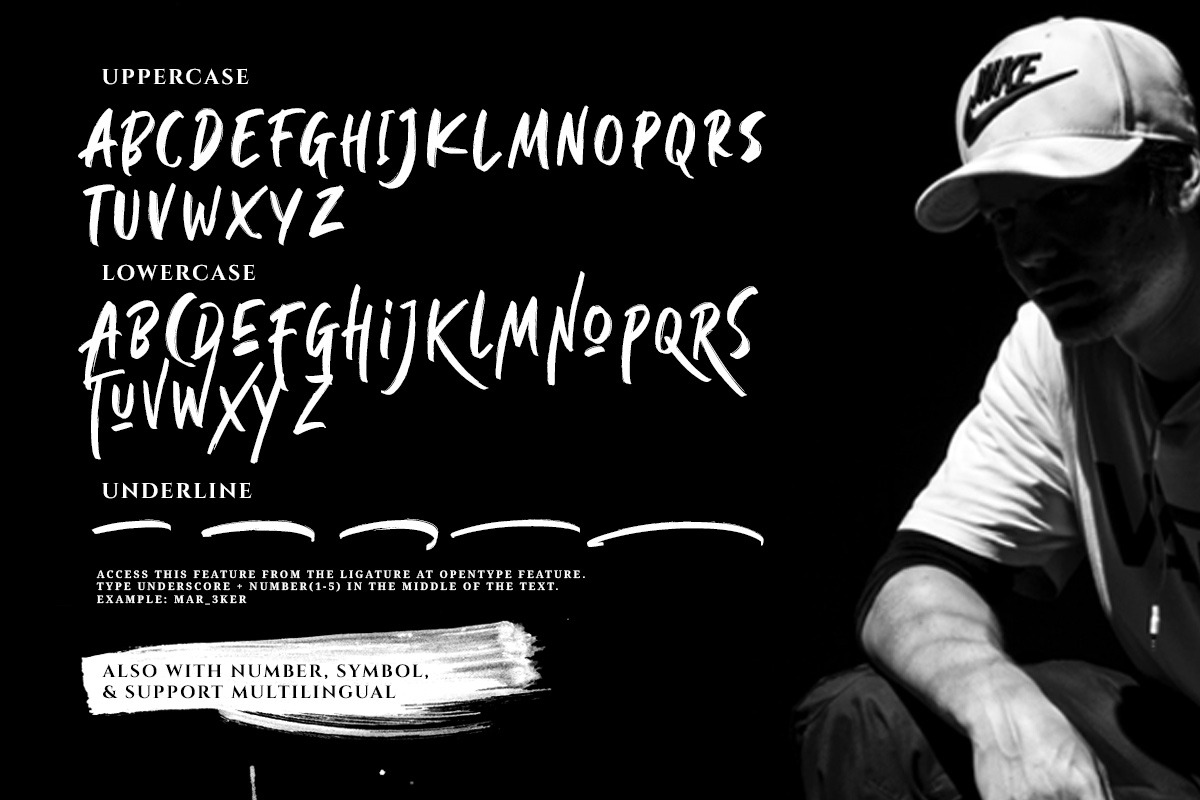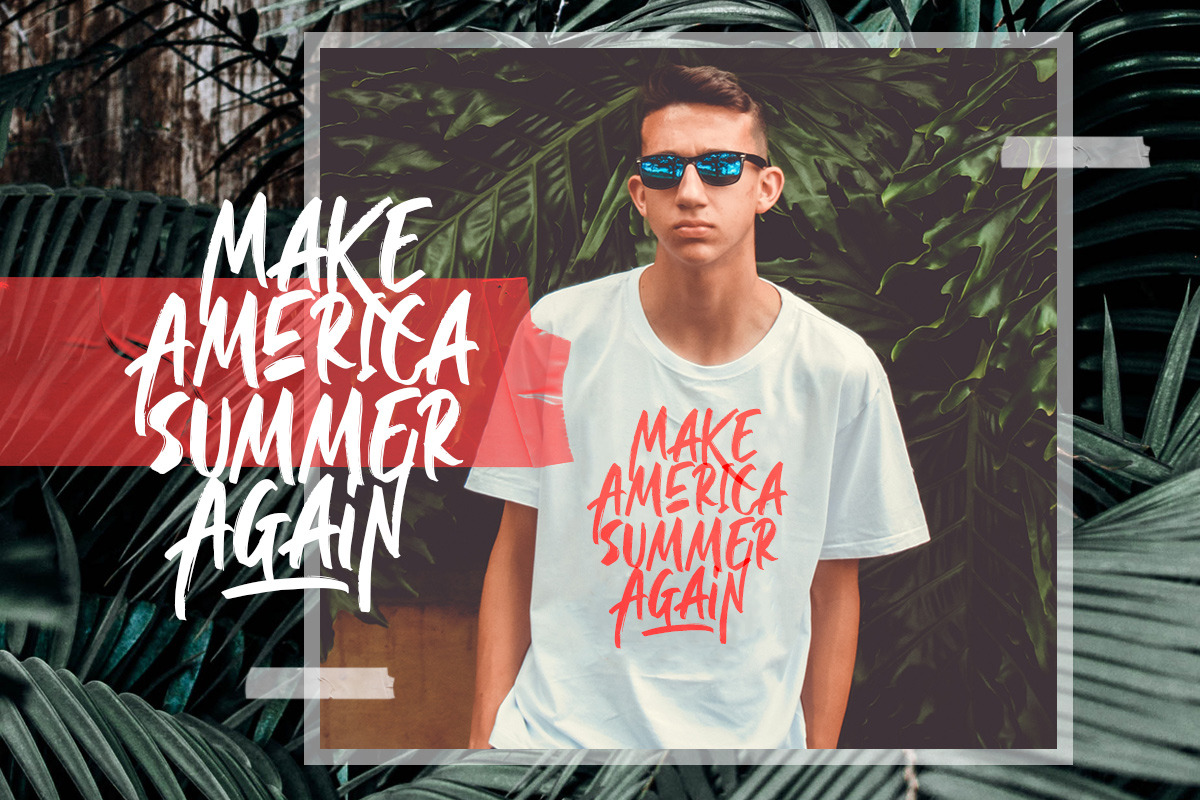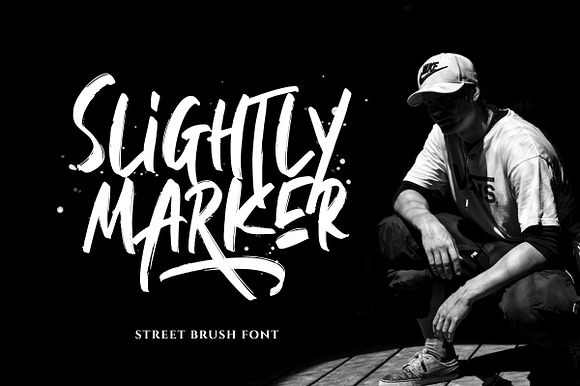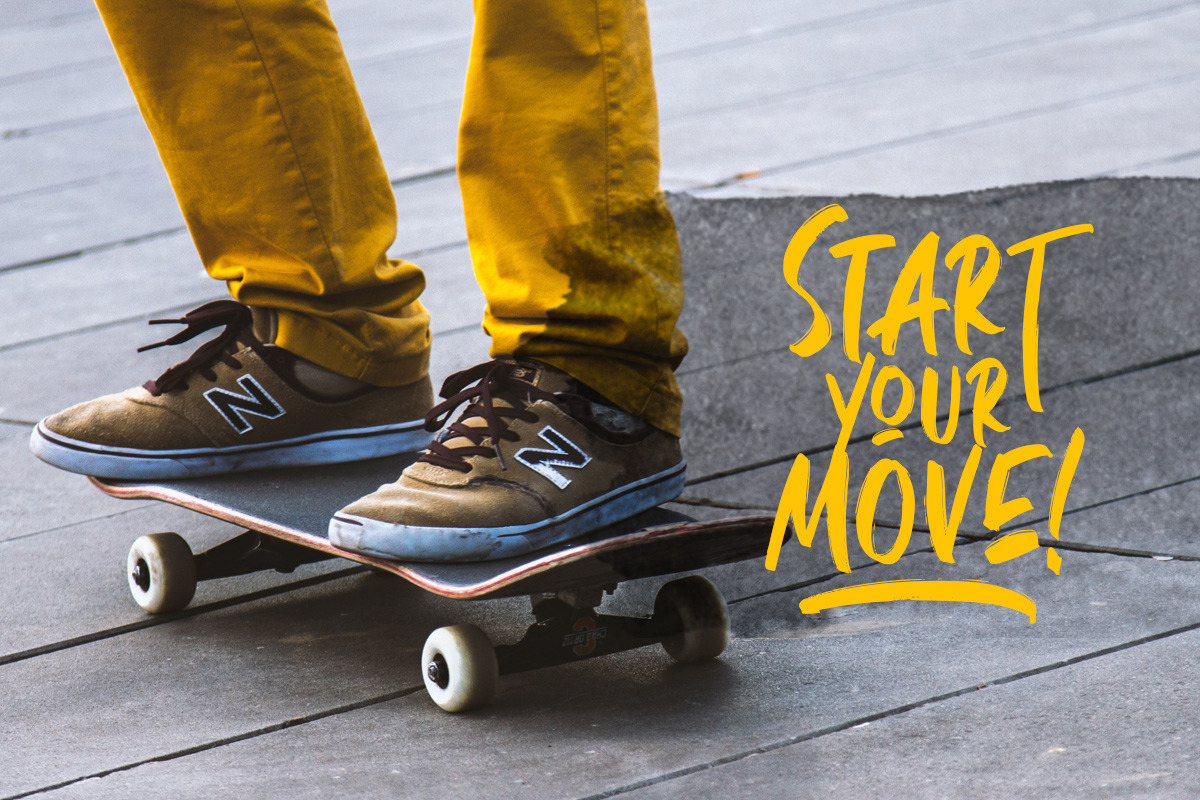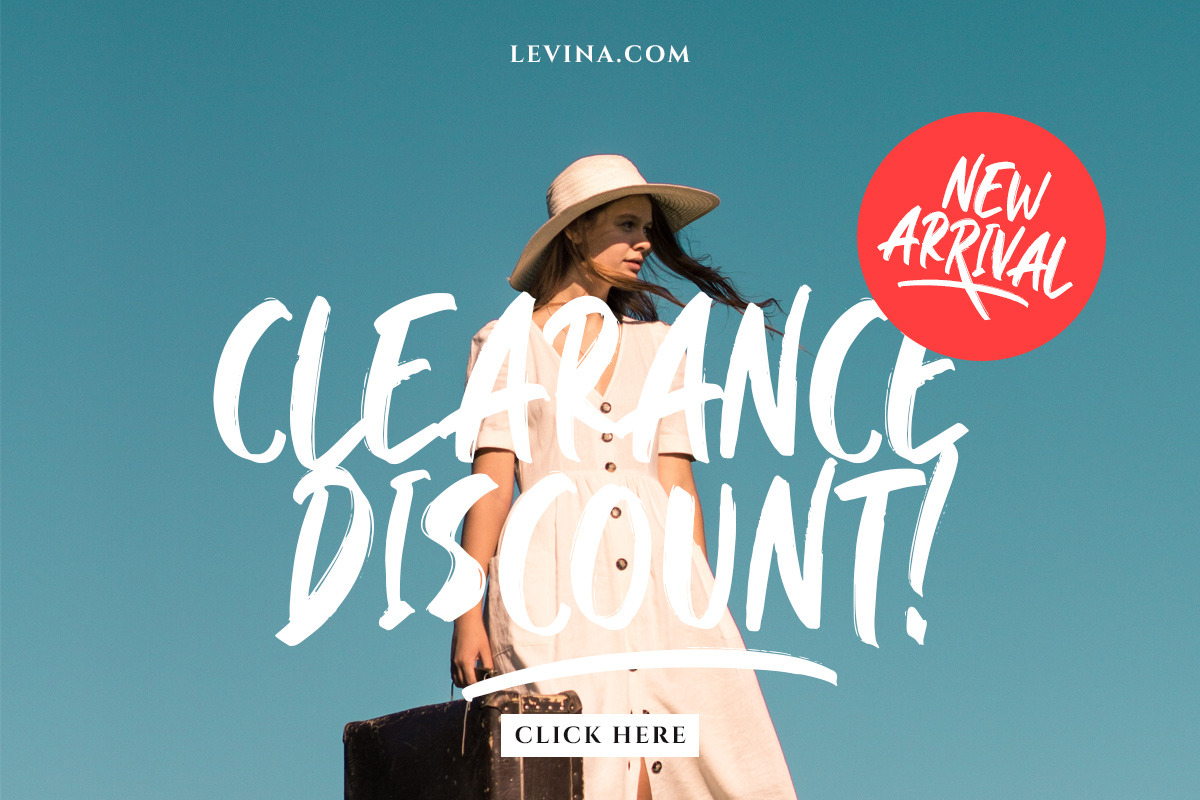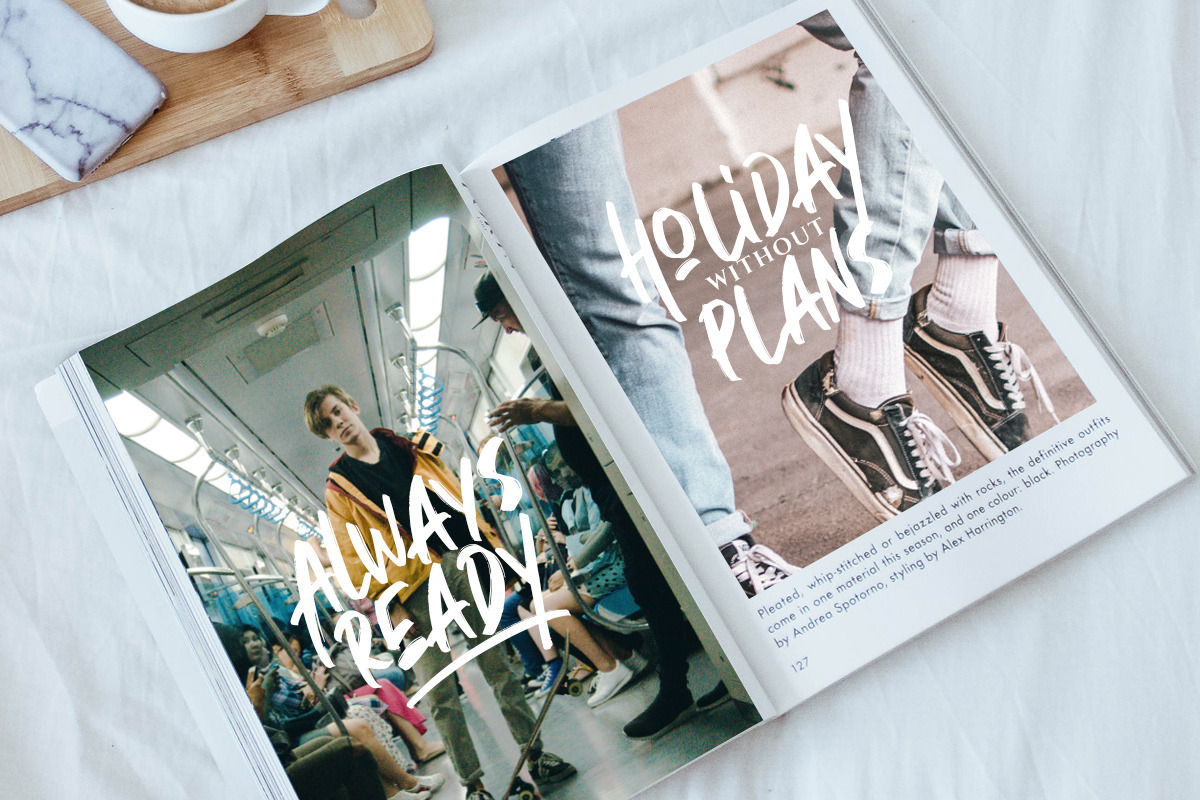
Slightly Marker - Brush Font
Introducing, Slightly Marker!
Slightly Marker is a caps font with street style brush. It's contain uppercase and lowercase in different style, number, symbol, and also with multilingual support! This font also contain opentype feature for adding line under a word, You can access it from ligature, simply type underscore + number (1-5) in the middle of the text. For example: Mar3ker. You can use this font for any project such as a branding, poster, or quotes!
- It's contain uppercase and lowercase in different style, number, symbol, and also with multilingual support!
- This font also contain opentype feature for adding line under a word, You can access it from ligature, simply type underscore + number (1-5)